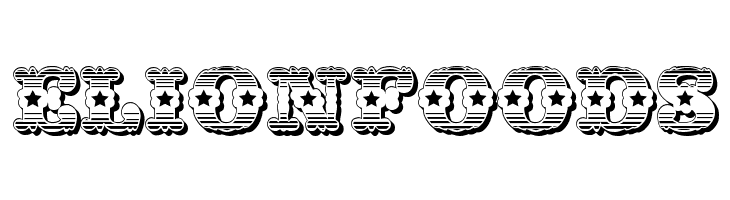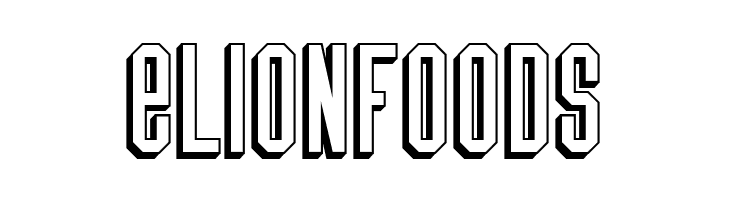
( Fonts by ARRF Designs )
A bold, decorative font with a distressed, grunge-like texture and thick outlines.
A bold, decorative font with characters enclosed in circular badges, reminiscent of vintage typewriter keys.
A bold, decorative font with a retro-futuristic style and geometric elements.
A decorative font with St. Patrick's Day-themed frames and festive designs.
A bold, geometric font with a three-dimensional outline, perfect for striking headlines.